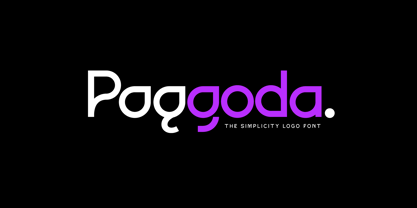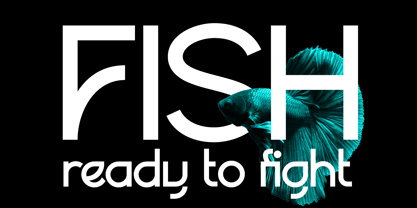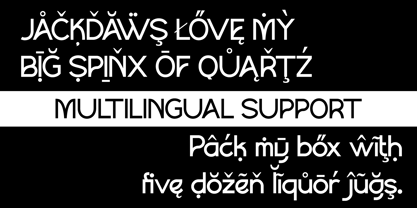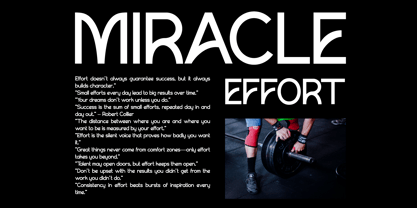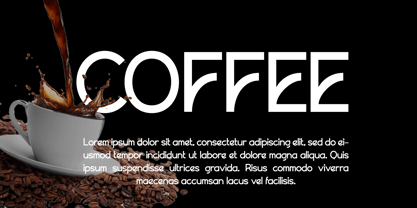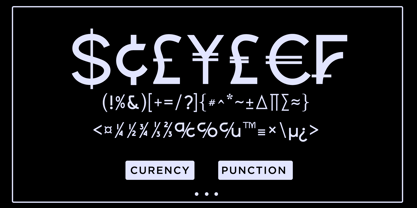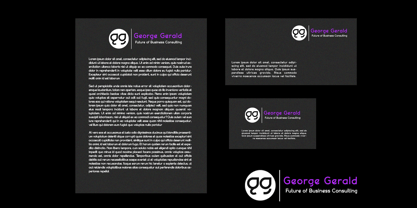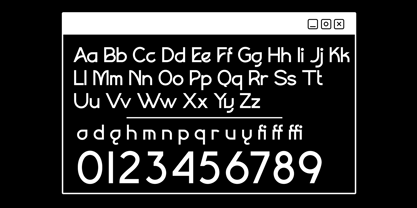
Paggodase
by Haksen
The Paggodase Font Family was designed by Sarwo Edhi Prayitno and published by Haksen. Paggodase contains 2 styles and family package options. More about this family
Introducing Paggodase, a clean and minimalistic logo font that perfectly balances simplicity and bold expression. Designed with geometric precision and a futuristic flair, Paggodase is ideal for brand identities, tech startups, product packaging, and creative logo designs.
With its unique character shapes and modern construction, Paggodase offers a visually distinctive style that stands out in both digital and print formats.
Features:
• Bold Geometric Structure: Built on modern shapes with smooth curves and sharp angles for high visual impact.
• Logo-Ready Design: Specifically crafted to work beautifully in logos, wordmarks, and headline displays.
• Stylish Alternates: Includes creative glyph alternates for flexible branding possibilities.
• High Legibility: Simple letterforms ensure clarity even at small sizes or on digital screens.
• Modern & Minimal: A clean aesthetic that suits contemporary design trends.
Benefits:
• Strong Brand Presence: Creates an instantly recognizable and professional visual identity.
• Versatile Usage: Ideal for logos, website headers, tech products, app designs, posters, and more.
• Easy to Customize: Simple shapes make it adaptable for unique branding tweaks and layout designs.
• Bold & Memorable: Leaves a lasting impression with its modern, confident style.
• Streamlined Workflow: Ready-to-use for designers looking for instant visual impact without excessive adjustments.
Whether you're launching a cutting-edge startup or redesigning a brand with modern sensibilities, Paggodase delivers bold simplicity and creative flexibility for all your design needs.
Designers: Sarwo Edhi Prayitno
Foundry: Haksen